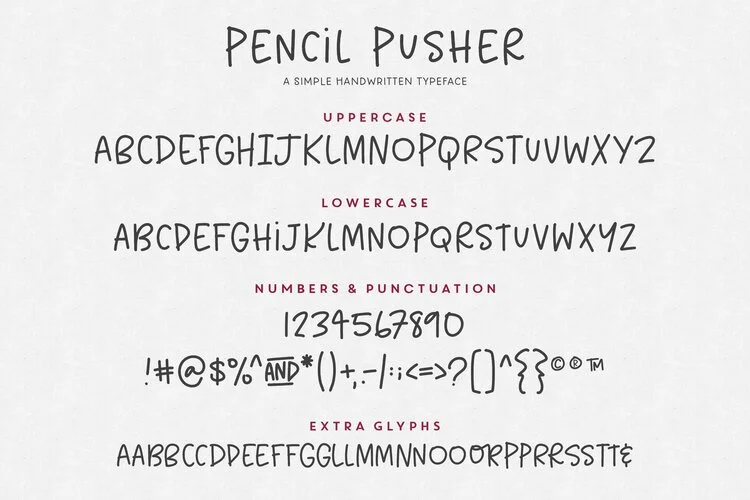
Say hello to Pencil Pusher, a simple, handwritten moonlike typeface. This font is so cute on social media posts and subtext. Use on greeting cards, Insta quotes, stationary, stickers and more!
Contains Ligatures. Glyphs Panel required to access.